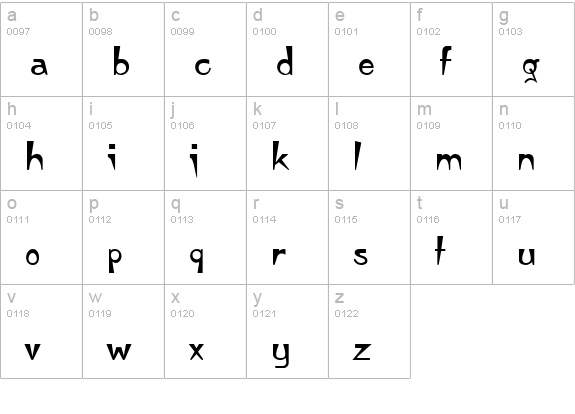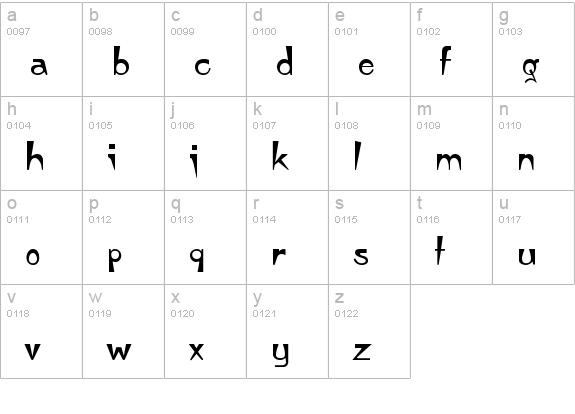
Pagoda SF Font Details
Pagoda SF is a stunningly unique font that effortlessly combines elegance with a touch of modernity. With its intricate and graceful letterforms, this font is perfect for adding a touch of sophistication to any design project. Whether it's a wedding invitation, a logo, or a website, Pagoda SF is sure to captivate and leave a lasting impression. What sets Pagoda SF apart is not only its visual appeal but also the fact that it is freely available to download at FontsMarket.com. This means that designers and creatives can access this extraordinary font without any cost, making it an invaluable resource for those seeking to elevate their designs without breaking the bank. The attention to detail in Pagoda SF is truly remarkable. Each character possesses a delicate balance of curves and straight lines, resulting in a harmonious and visually pleasing aesthetic. The font's versatility is evident in its ability to adapt seamlessly to various design styles, whether it be a minimalist approach or a more ornate and decorative one. With Pagoda SF, the possibilities are endless. Its timeless charm and versatility make it suitable for a wide range of applications, from branding and packaging to editorial design and signage. This font invites you to explore your creativity and experiment with different typographic compositions, knowing that you have a beautiful and freely accessible tool at your disposal. So, why settle for ordinary fonts when you can elevate your designs with the elegance and sophistication of Pagoda SF? Download it for free at FontsMarket.com and unlock a world of possibilities for your next design project.